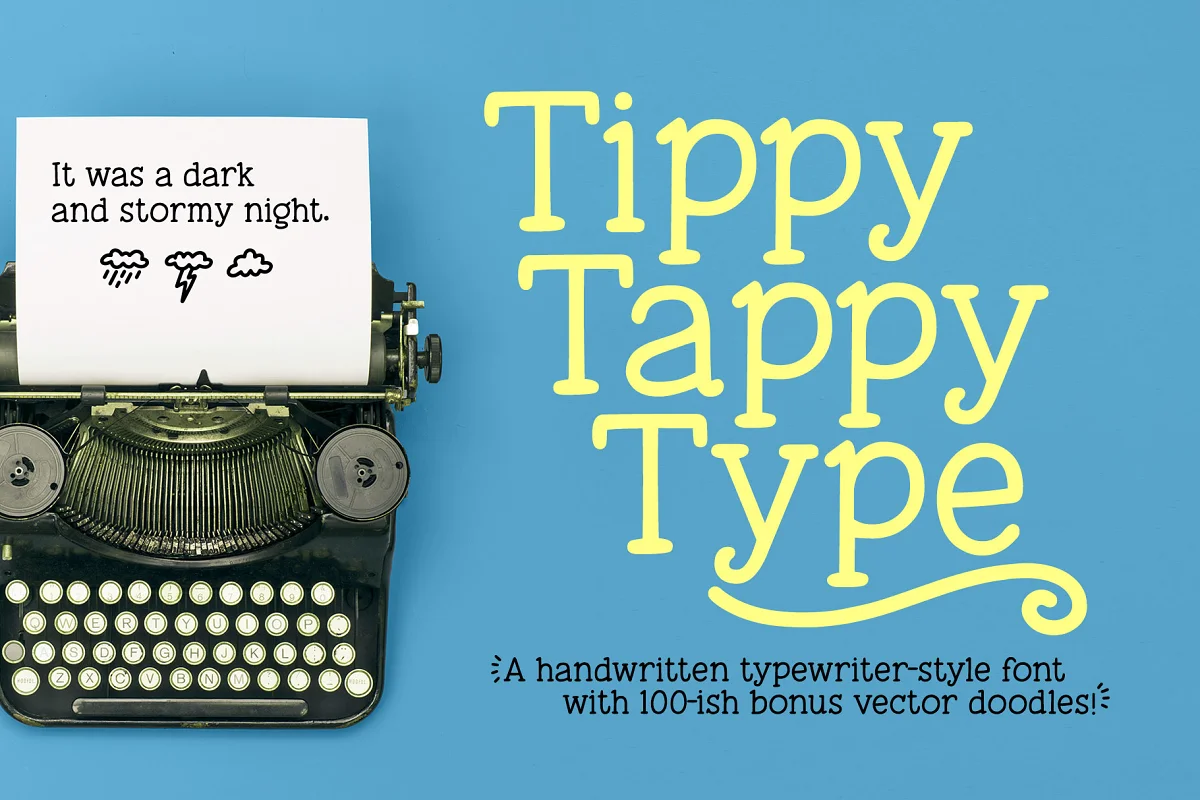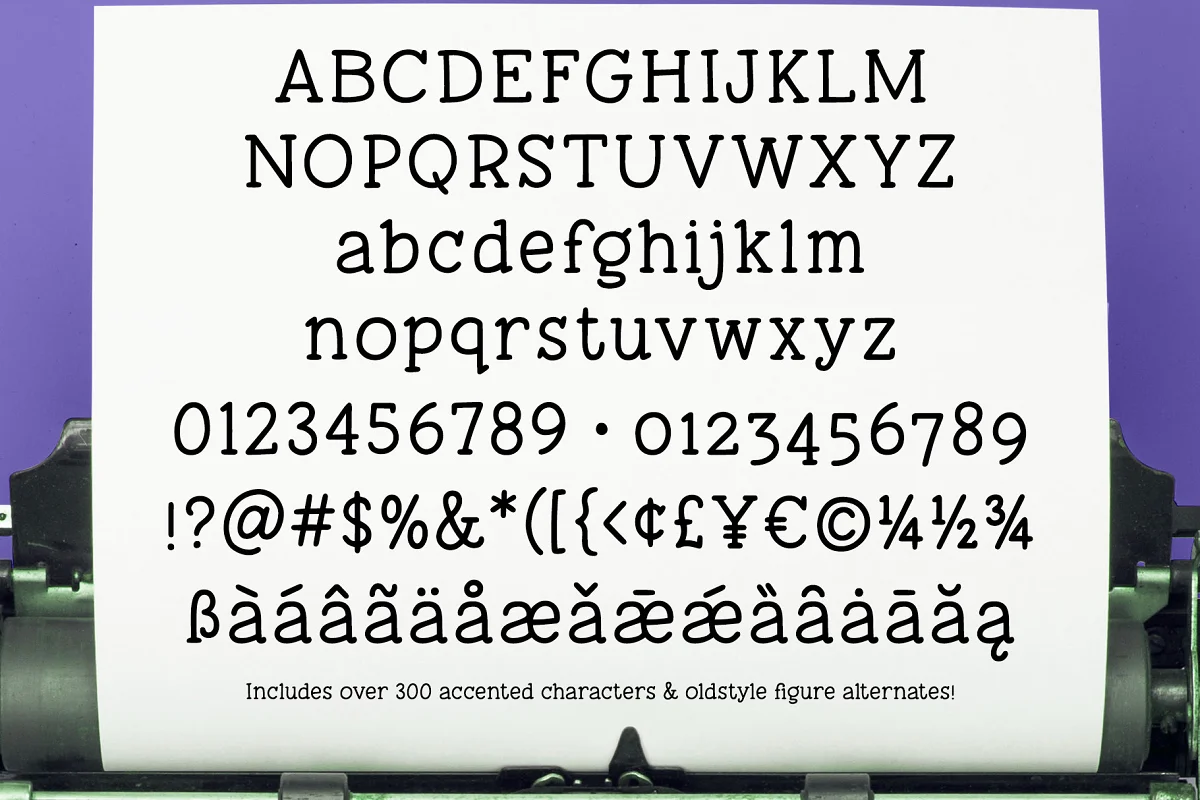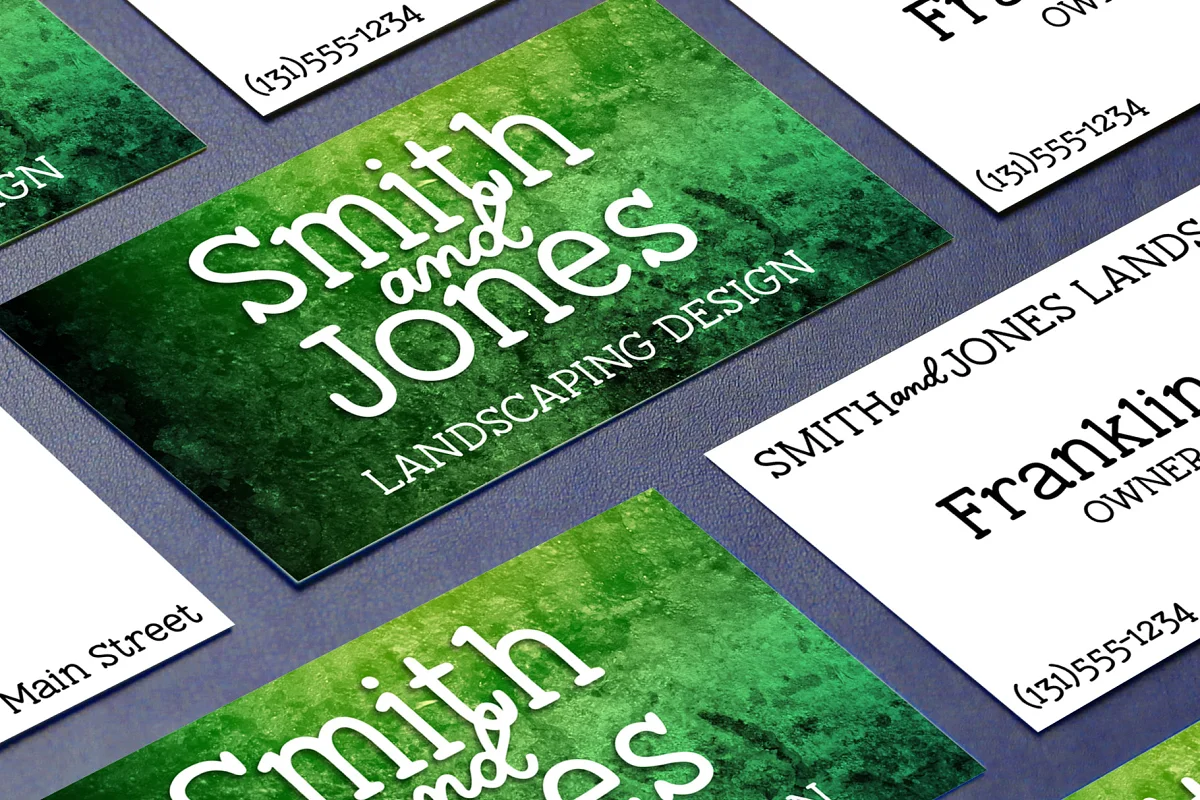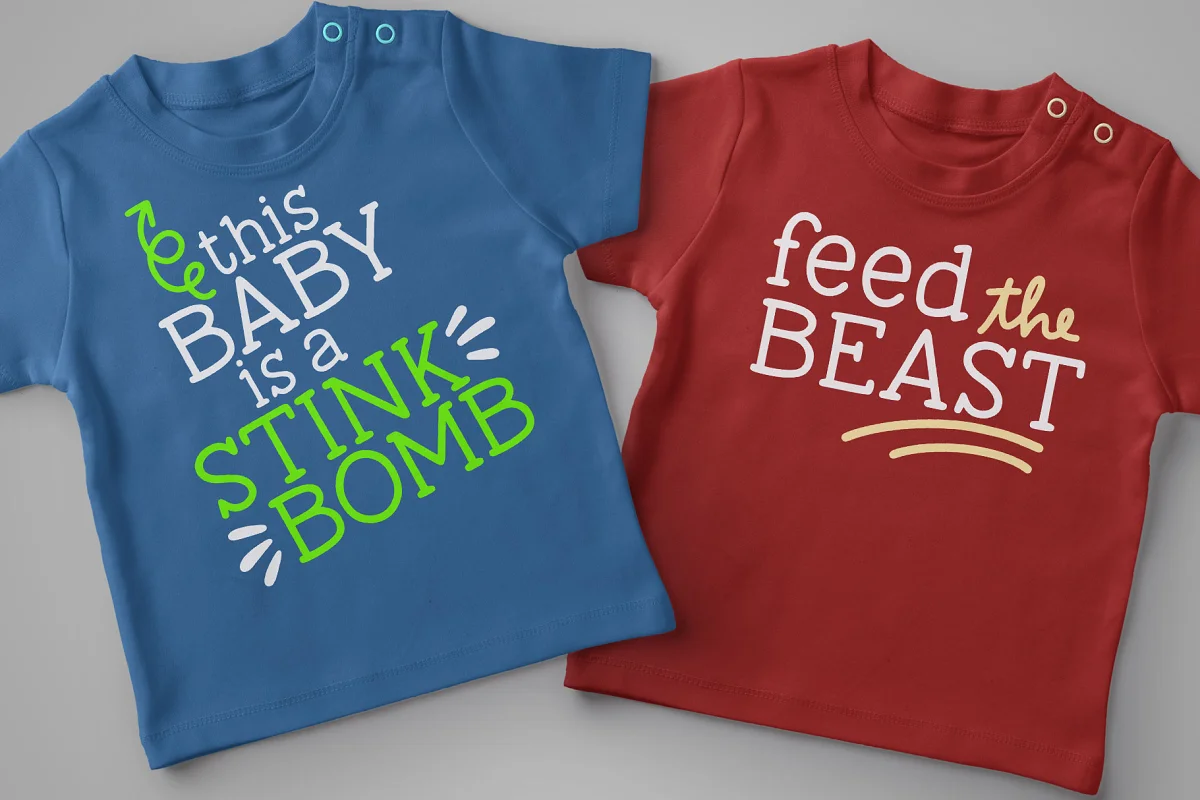
About the Tippy Tappy Typewriter Font
In my house, we refer to typing with just the index fingers of each hand “Tippy Tappy Typewriter Font.” I’m not good with my thumbs, so if I have to type on my phone, I prefer to set it down flat and tippy tappy type on it.
Thus, when I decided to draw a font that’s typewriter-ish, the name seemed perfect!
This one was all drawn by hand, then cleaned up so it will both print and cut well. And to make things even more fun, I drew a set of almost 100 bonus items: doodles, shapes, squiggles, swirls, arrows, and catchwords of “and” and “the”. They’re included in SVG and EPS formats.
Tippy Tappy Type includes:
- The usual basics: A-Z, a-z, 0-9, and punctuation
- Over 300 extended Latin characters for Western European and some Eastern European languages support
- Alternate old-style figures
- Approximately 100 bonus vector doodles